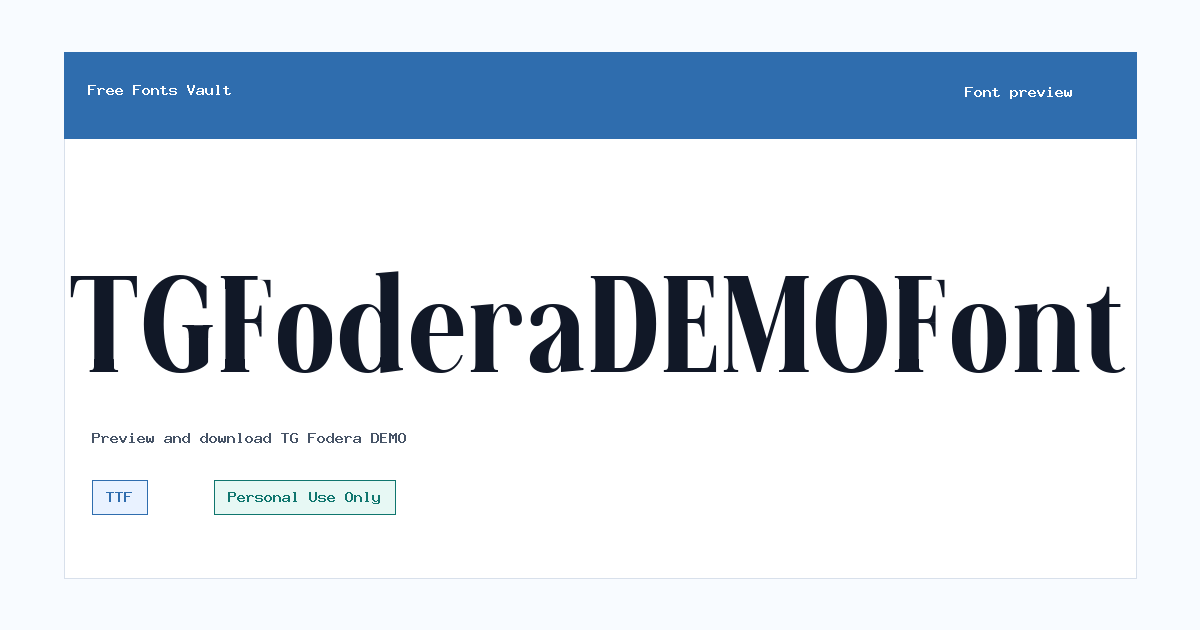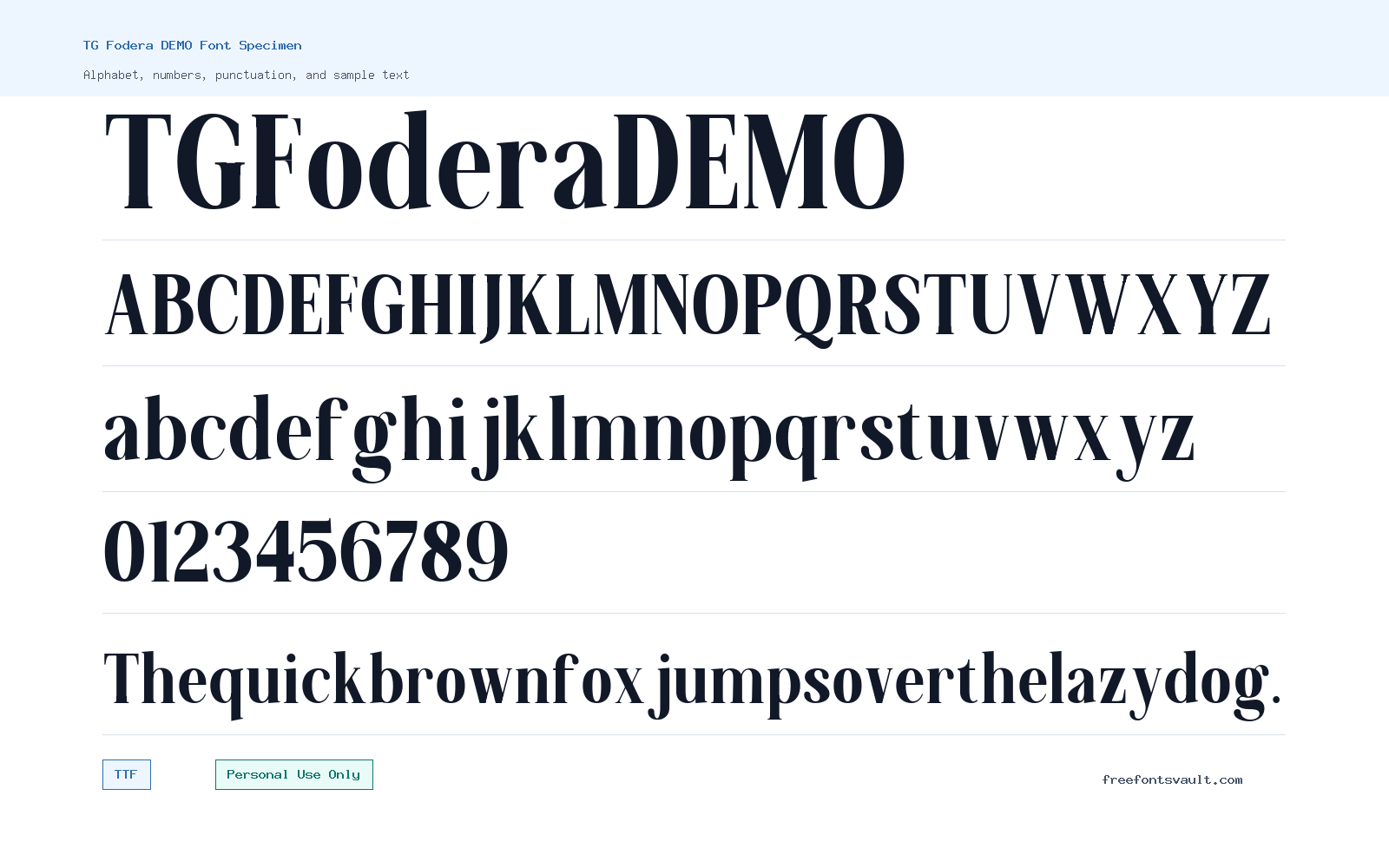
TG Fodera DEMO
TG Fodera DEMO font.
TG Fodera DEMO is a serif font for personal projects, previews, and design testing. It comes as a regular TTF style and is best approached as a display-friendly typeface for short text rather than long reading copy.
About TG Fodera DEMO
TG Fodera DEMO is a serif font family connected with typogrid and designer Mukhamad Rafly Makhbuby. The name identifies this release as a demo, so it is sensible to test it carefully in the preview tool before using it in a finished design. Serif fonts often bring a more editorial or refined tone than plain sans-serif type, and TG Fodera DEMO can be explored for headings, nameplates, cover-style layouts, and presentation graphics where the letters have room to show their shape.
Because the available style is regular weight, it works best when the design does not depend on a large weight range. Try it first in short lines: brand name mockups, poster titles, quote graphics, invitation headings, website hero text, and social post artwork. For longer paragraphs, check spacing, letter clarity, and contrast at smaller sizes. A display serif can look attractive in a large heading but feel harder to read when packed into dense body text, so pair it with a clean sans-serif or a quiet text serif for descriptions, captions, menus, and supporting copy.
- Serif styling that is more useful for short, prominent text than for dense paragraph setting.
- Single-style setup, which keeps testing simple but limits typographic hierarchy compared with families that include bold, italic, or multiple weights.
- Logo concepts and personal brand mockups where a serif title style is needed.
- Poster headlines, cover layouts, quote cards, and social graphics.
- Website hero mockups, landing page headings, and portfolio presentation images.
- Invitation drafts, editorial-style title treatments, and mood boards.
- Typography experiments where you want to compare a serif headline against simple supporting text.
Use TG Fodera DEMO where the font can stay large enough to be appreciated. Start with headings, logo drafts, poster titles, or web hero text, then test the same words at the actual size your audience will see. If the design needs body copy, pair it with a neutral sans-serif such as a simple grotesk or humanist sans. Keep the supporting font quiet so the serif title remains the focus. For logo work, remember that the personal-use limit matters: a logo for a business, client, monetized project, or public brand normally needs commercial rights. If you are only exploring a concept, the demo can help you judge tone, spacing, and fit before deciding whether to license a fuller version.
What kinds of projects suit this font?
It is most useful for short display text such as logo drafts, poster headlines, cover-style titles, web mockups, quote graphics, and invitation headings. Test readability before using it in small sizes.
What should I pair with TG Fodera DEMO?
Try pairing it with a simple sans-serif for body text, captions, navigation, or product details. A restrained companion font helps the serif headline stand out without making the layout feel crowded.